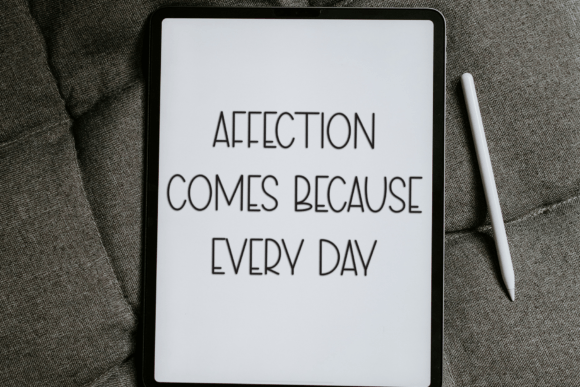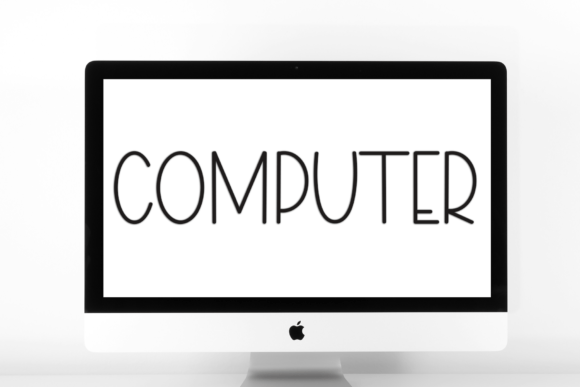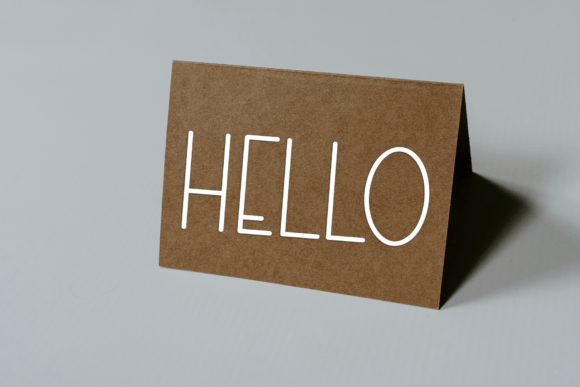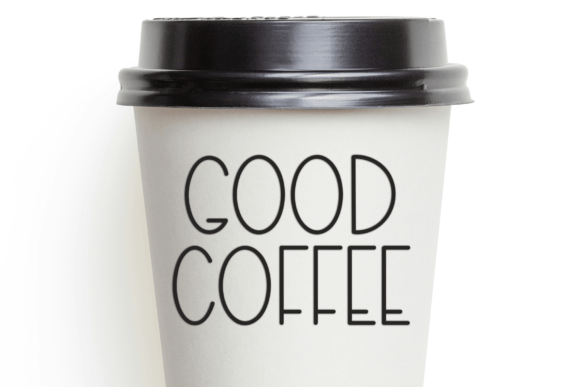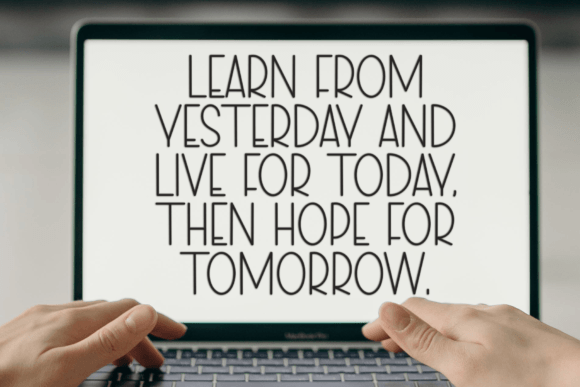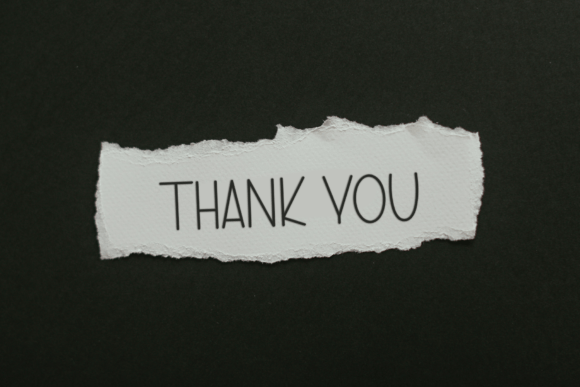
Introducing Brother Font: Elevate Your Designs with Elegance
In the world of design, fonts play a crucial role in conveying the message and aesthetic of a project. Whether you’re a professional designer or a crafty DIY enthusiast, finding the right font can make all the difference. This is where Brother Font comes in – a magical sans-serif font designed to add a touch of elegance to your creations. In this article, we’ll dive into the features and benefits of Brother Font, and explore how it can help you turn your creative ideas into stunning works of art.
The Story Behind Brother Font
Brother Font is more than just a font – it’s a carefully crafted tool designed to bring a sense of sophistication and refinement to your designs. Its sans-serif style gives it a clean and modern look, making it perfect for a wide range of applications, from social media graphics to calligraphy scripts. The font’s creator had a vision of producing a typeface that would be both versatile and beautiful, and Brother Font certainly delivers on that promise.
Key Features of Brother Font
- Elegant Sans-Serif Style: Brother Font boasts a sleek and modern sans-serif design that adds a touch of elegance to any project.
- Versatility: This font is suitable for a wide range of applications, including Instagram graphics, calligraphy scripts, DIY projects, and more.
- Easy to Read: The clear and clean lines of Brother Font make it easy to read, even at smaller sizes.
- Highly Customizable: With Brother Font, you can experiment with different sizes, colors, and styles to create a unique look that suits your project.
Using Brother Font for Instagram and Social Media
In today’s digital age, having a strong online presence is crucial. With Brother Font, you can create stunning Instagram graphics that showcase your creativity and style. Whether you’re a blogger, influencer, or small business owner, this font can help you elevate your social media game. Use Brother Font to create eye-catching captions, quotes, and promotional graphics that grab attention and drive engagement.
Brother Font for Calligraphy and DIY Projects
For crafty DIY enthusiasts, Brother Font offers a world of creative possibilities. Use this font to create beautiful calligraphy scripts for handmade cards, gift tags, and other paper crafts. The font’s elegant style and clear lines make it perfect for projects that require a personal touch. With Brother Font, you can add a touch of sophistication to your DIY projects and make them truly special.
Tips for Getting the Most Out of Brother Font
- Experiment with Different Sizes: Brother Font looks great at a range of sizes, from small and delicate to large and bold.
- Play with Color: Try pairing Brother Font with different colors and textures to create a unique look.
- Mix and Match with Other Fonts: Brother Font pairs well with a range of other fonts, so don’t be afraid to experiment with different combinations.
Brother Font is a versatile and beautiful sans-serif font that’s perfect for designers and crafters alike. With its elegant style, clear lines, and highly customizable design, this font is sure to become a go-to choice for a wide range of creative projects. Whether you’re looking to elevate your Instagram game, create stunning calligraphy scripts, or add a touch of sophistication to your DIY projects, Brother Font is the perfect tool for the job. So why wait? Download Brother Font today and start turning your creative ideas into stunning works of art!